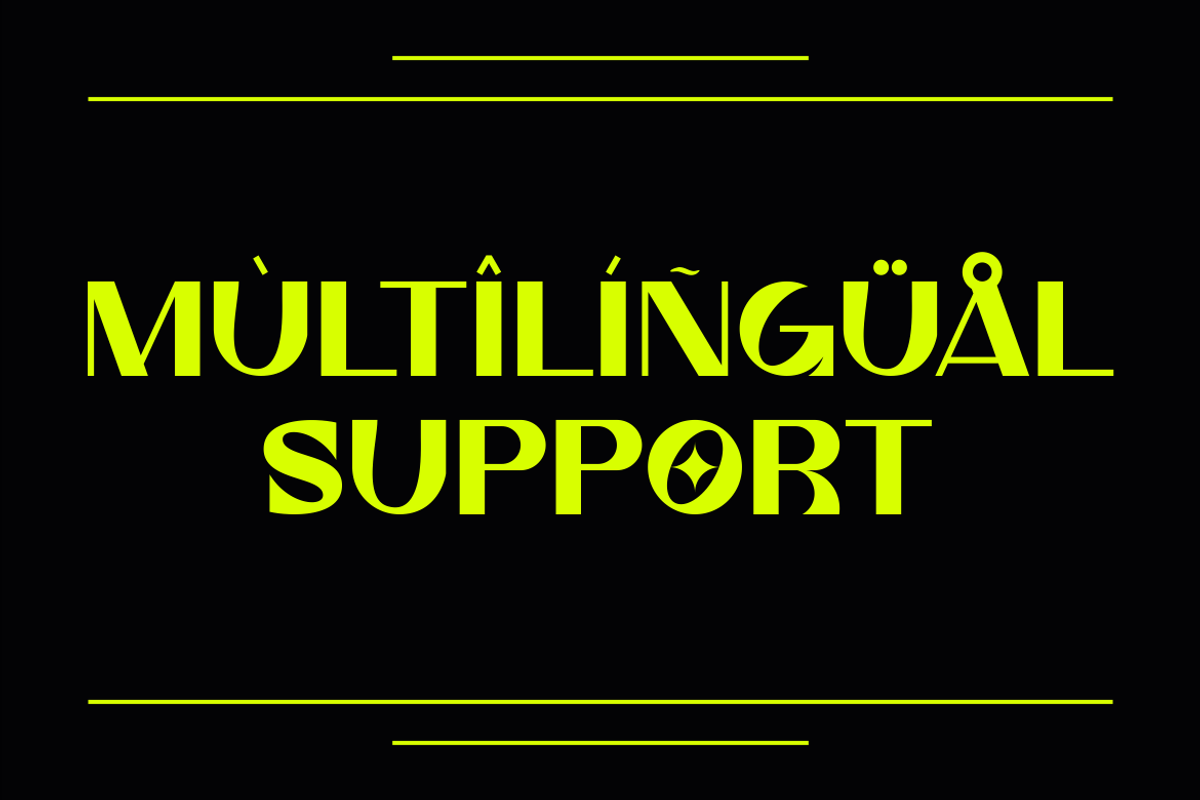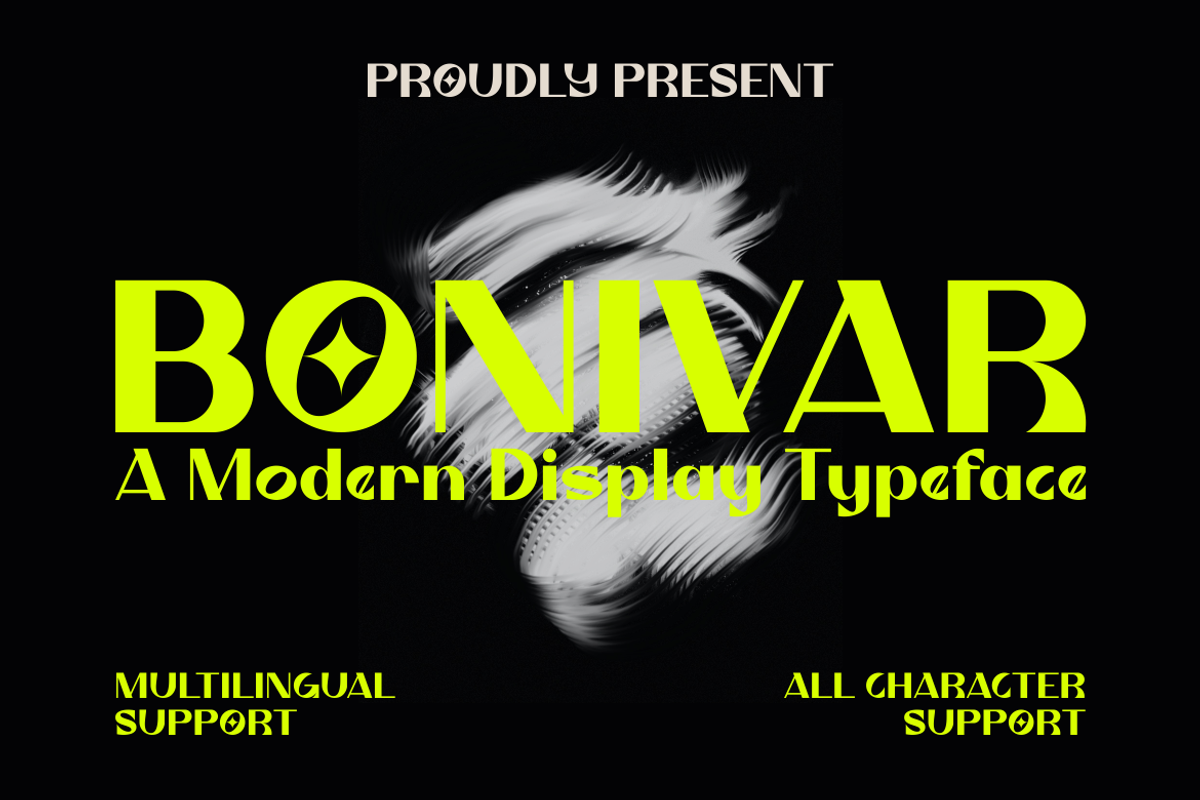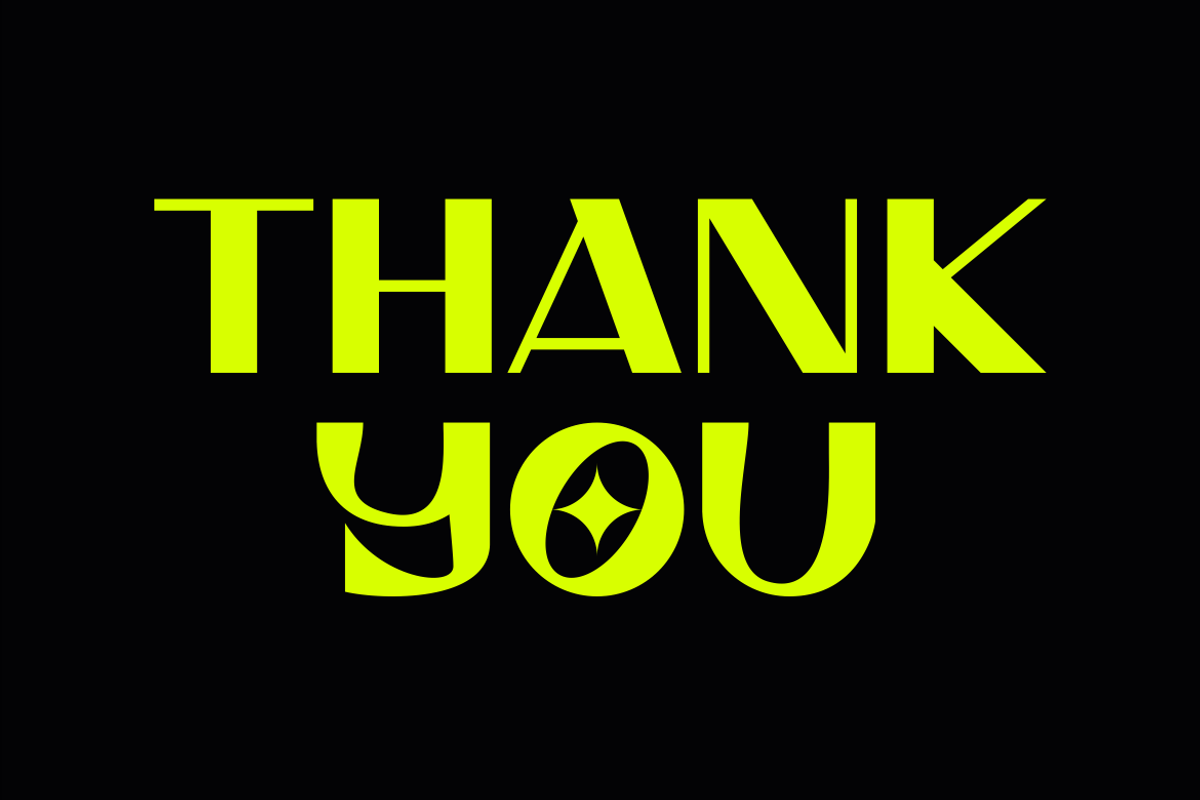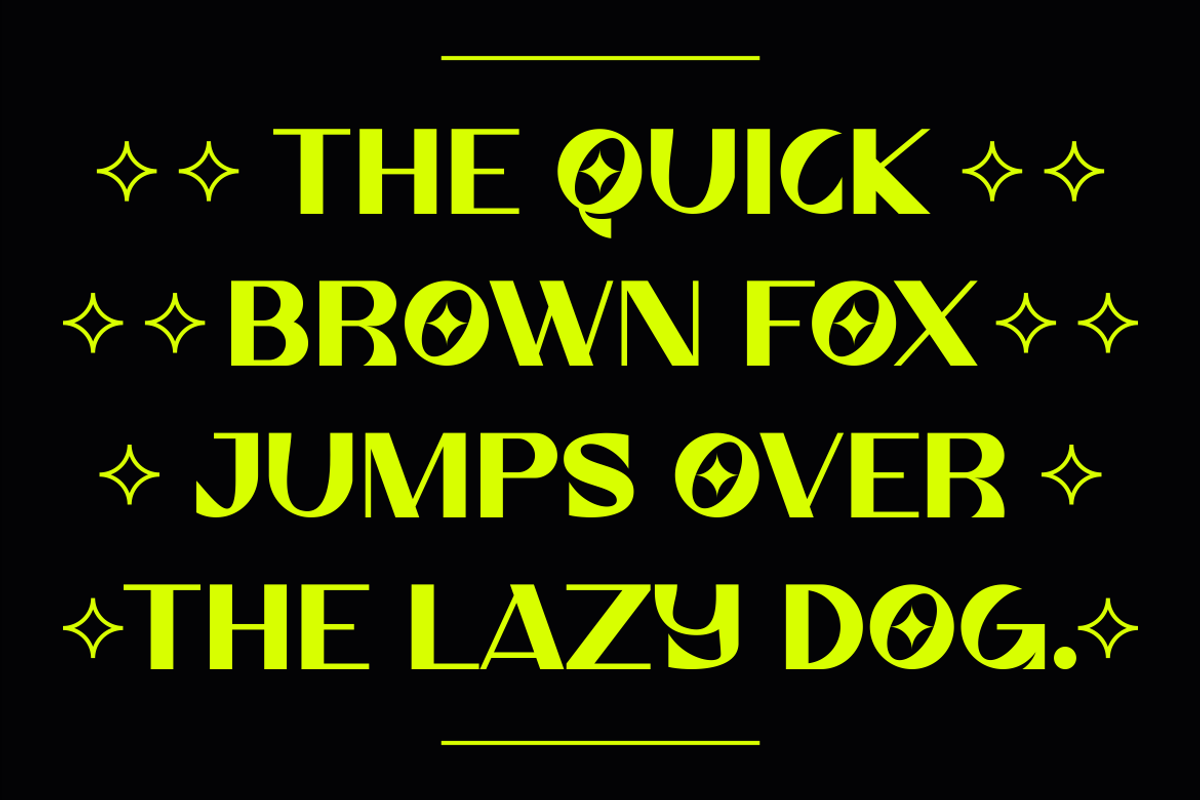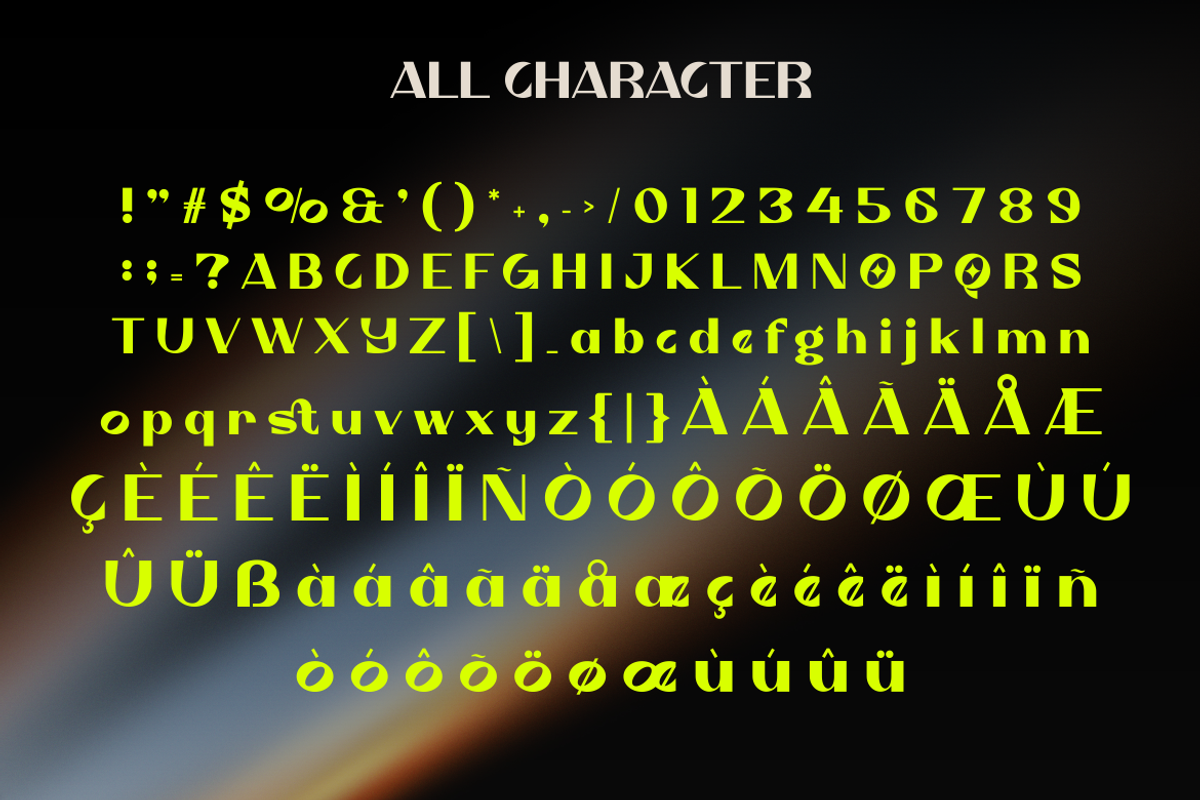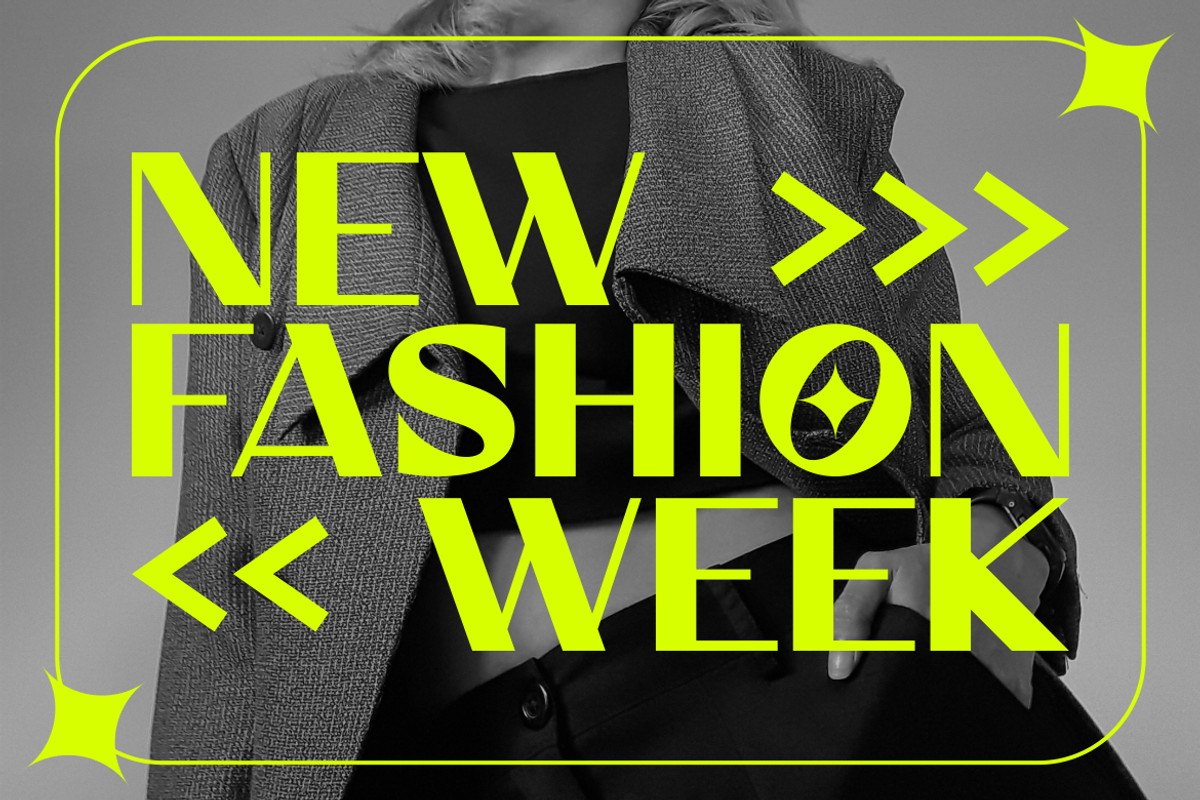
Bonivar - A Modern Display Font
Introducing our new product Bonivar Font - Modern Font is a bold and authentic display font. The font is suitable for any branding project like logo, Template Design, Product and many more. outstanding in a wide range of contexts.